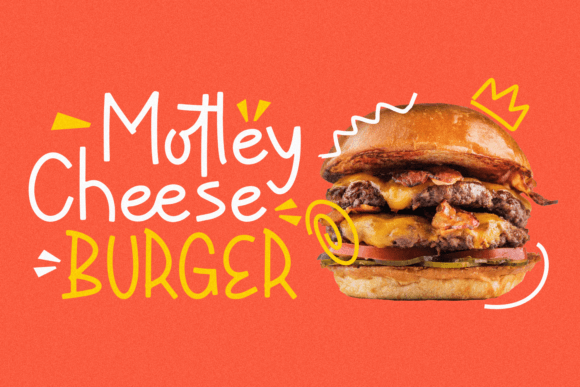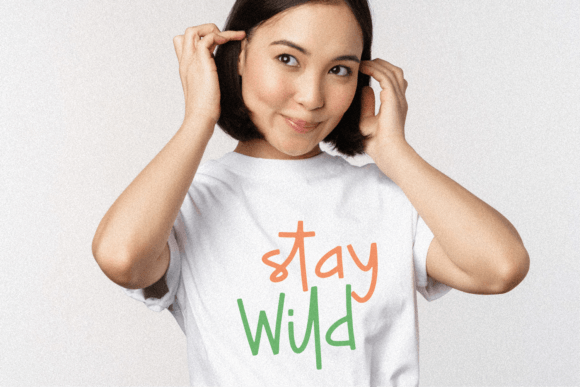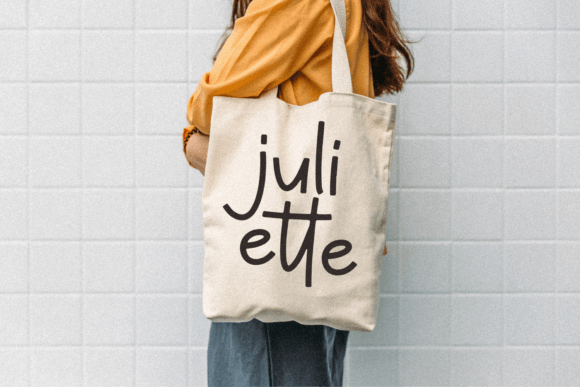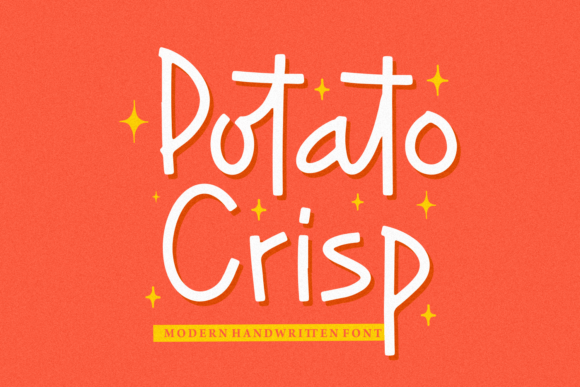
Introduction to Potato Crisp Font
Potato Crisp is a handwritten script font that will make your designs look classic, farmhouse, boho, and feminine.
Perfect font for events, wedding projects, fashion, apparel projects, signatures, album covers, logos, branding, magazines, social media posts, and advertisements, but it also works great for other projects Add it to your fonts’ library and use your creativity.
Key Features of Potato Crisp Font
Why Choose Potato Crisp Font?
Potato Crisp Font offers exceptional quality and versatility, making it a valuable addition to your design toolkit. Whether you’re creating for personal projects or commercial use, Potato Crisp Font delivers professional results.